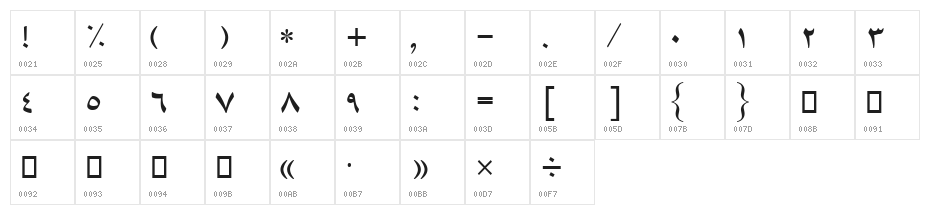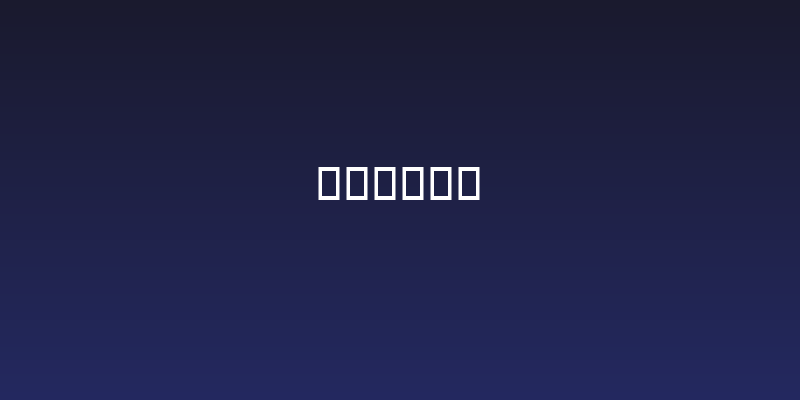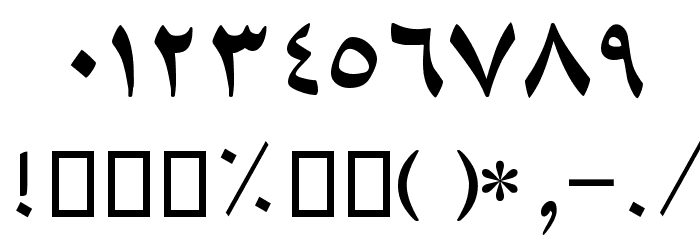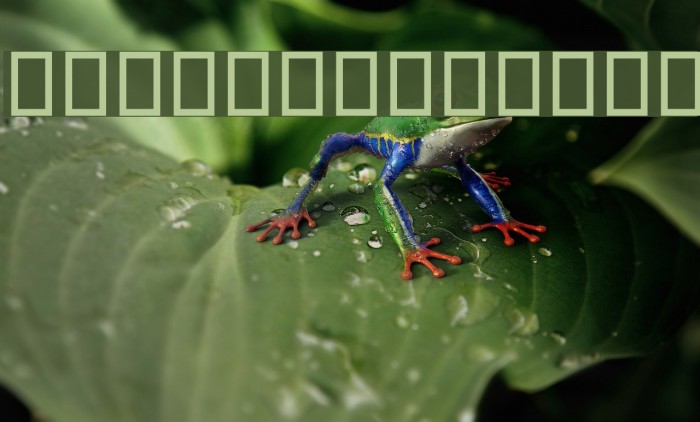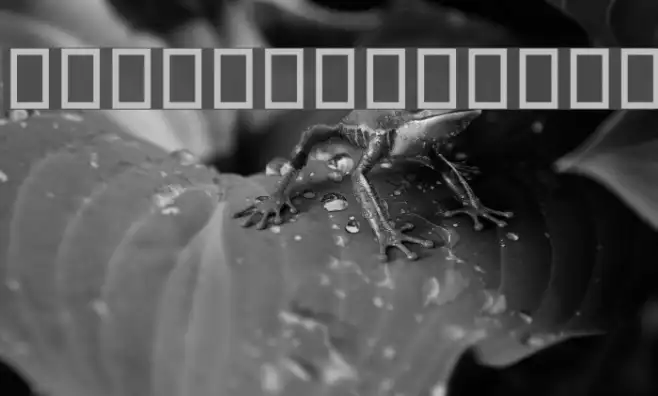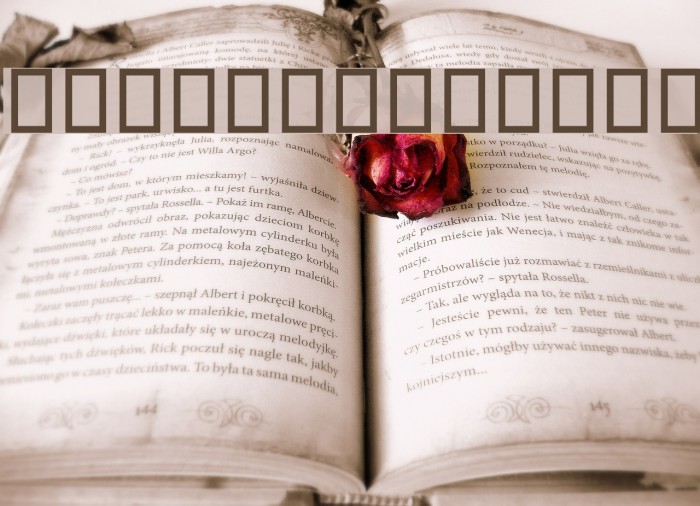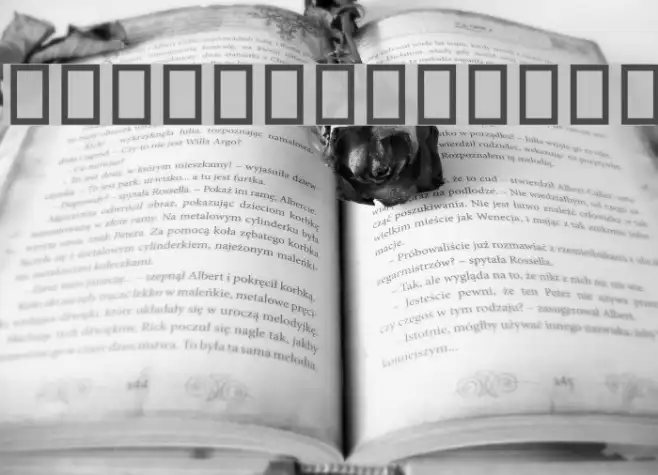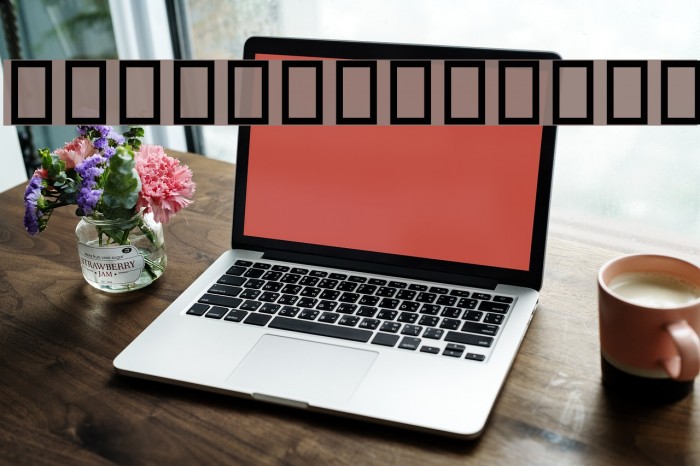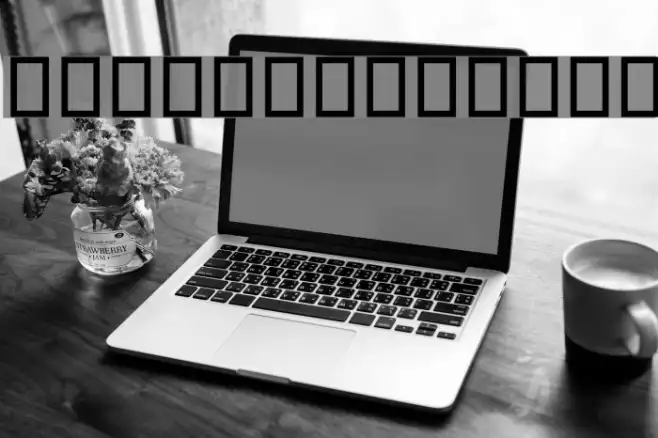
Dawaat Font
Dawaat Description
This font features a unique and artistic style, characterized by its flowing and dynamic strokes. The numerals are particularly distinctive, with a calligraphic flair that adds a touch of elegance and sophistication. The special characters maintain this artistic theme, providing a cohesive look across all glyphs. The overall design is both modern and traditional, making it versatile for various applications.
| Use Case | Logos, Invitations, Artistic Projects |
| Proposed Projects | Ideal for wedding invitations, artistic posters, branding for luxury products, and any project requiring a touch of elegance. |